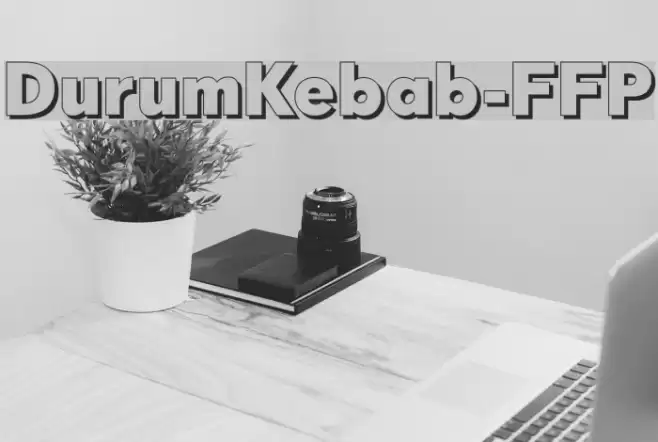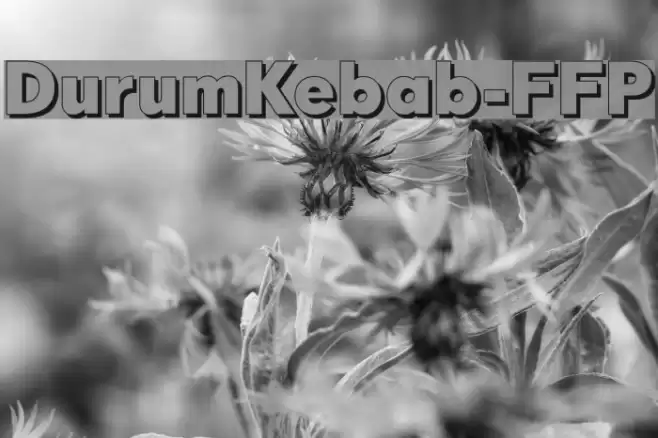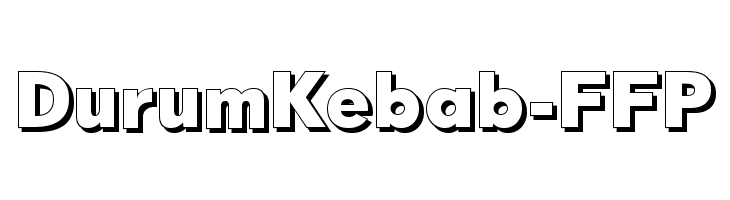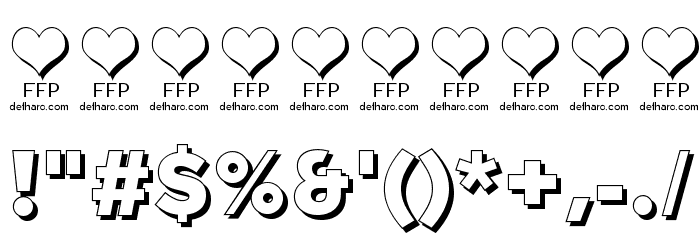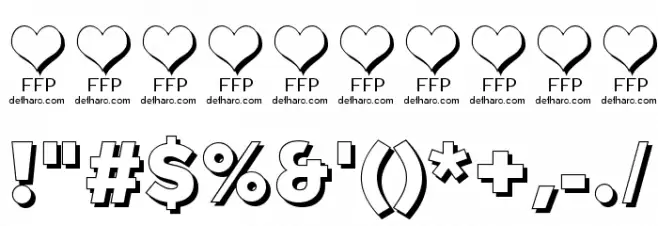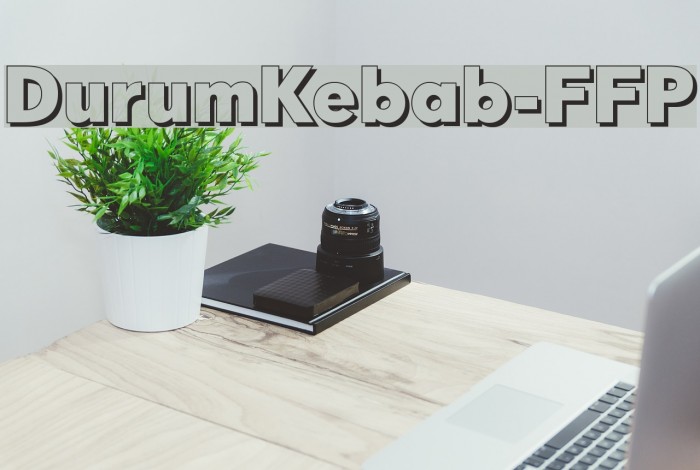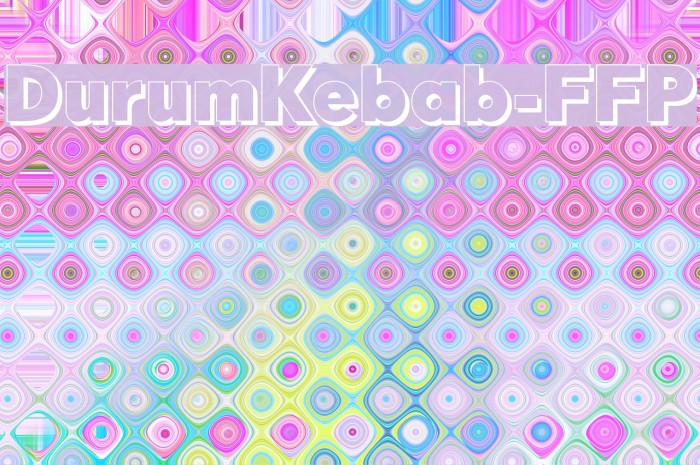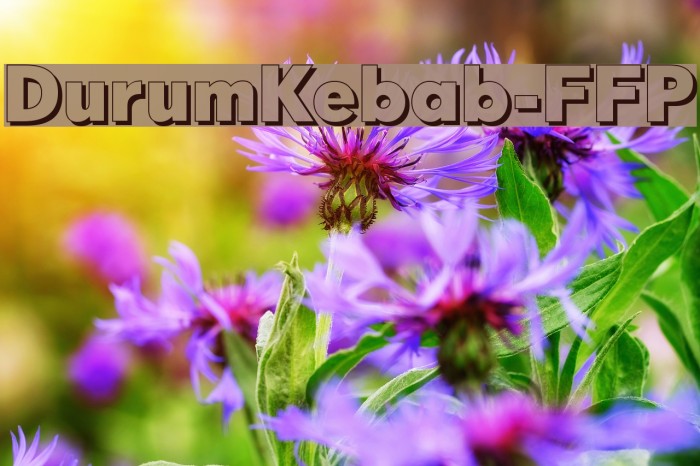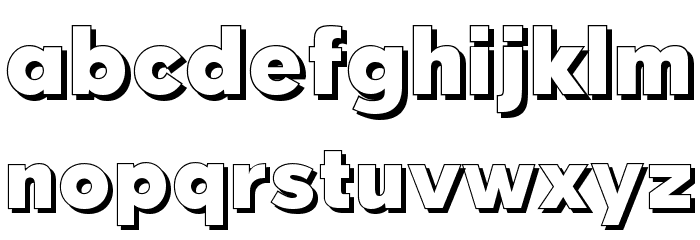
DurumKebab-FFP Font
DurumKebab-FFP Description
This font features bold, uppercase and lowercase letters with a distinct shadow effect that gives a three-dimensional appearance. The characters are well-defined with clean lines and a modern aesthetic. The uppercase letters are strong and impactful, while the lowercase letters maintain a consistent style, offering versatility in design. The numerals and special characters follow the same bold and shadowed style, ensuring uniformity across all text elements. This font is ideal for creating eye-catching headlines or logos that require a contemporary and dynamic look.
A bold, shadowed font with a modern, three-dimensional style from Uncategorized fonts.
- Proposed Projects: Ideal for branding, poster design, advertising, and any project requiring a bold, modern typeface.